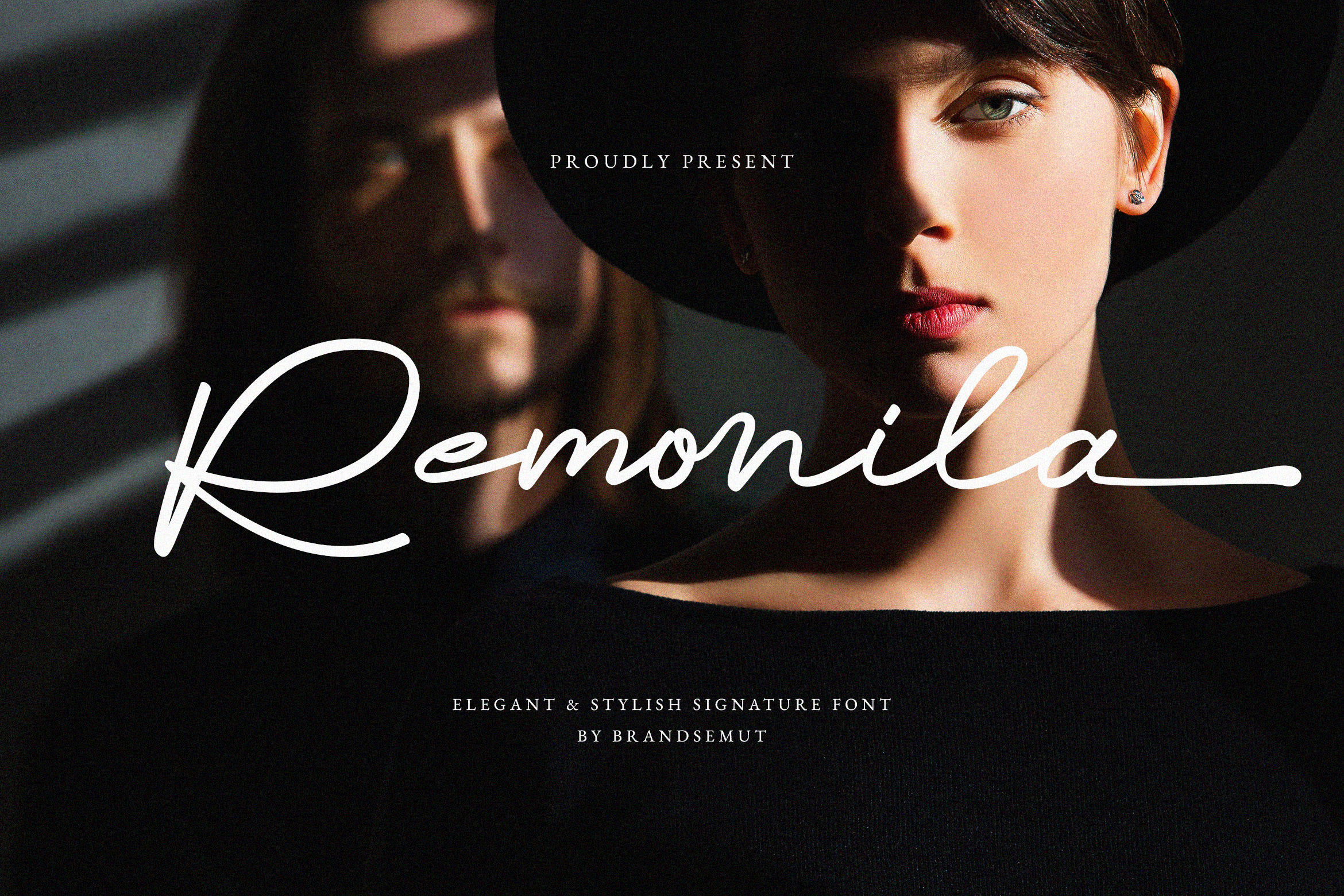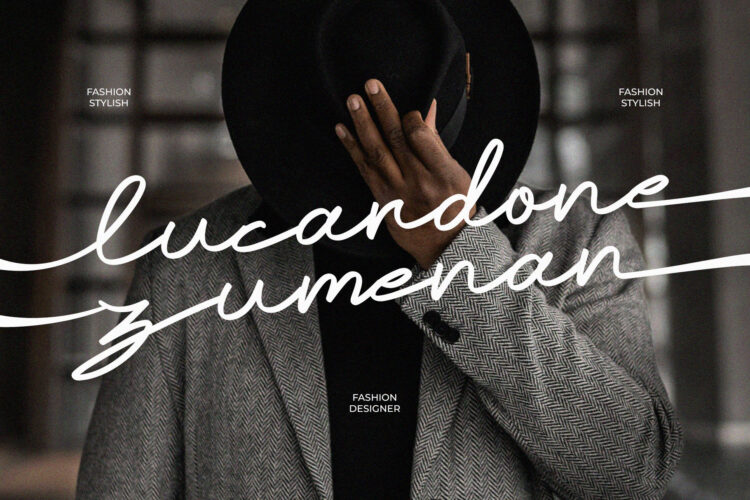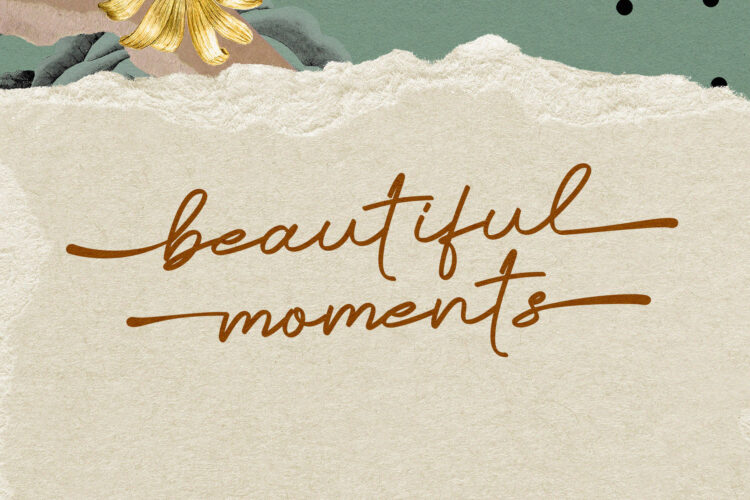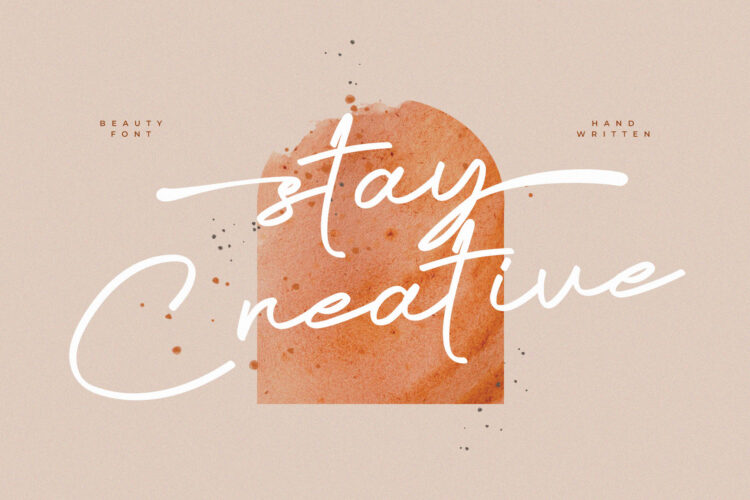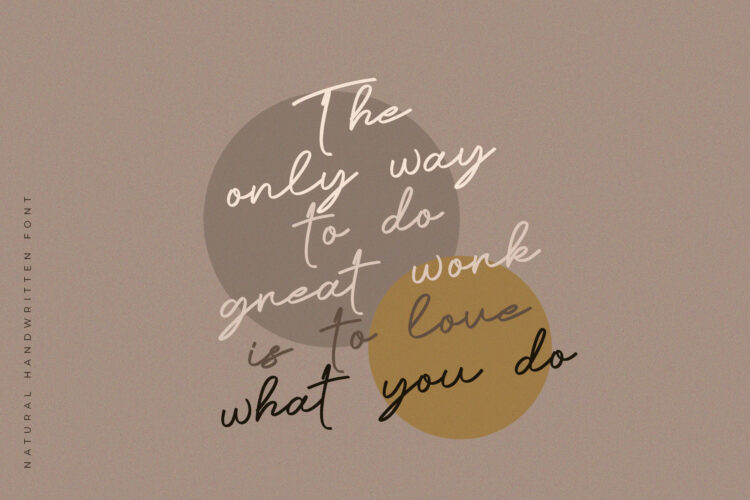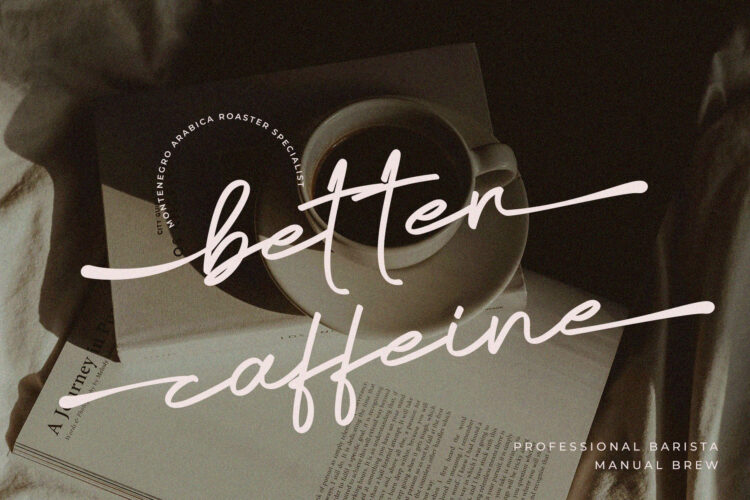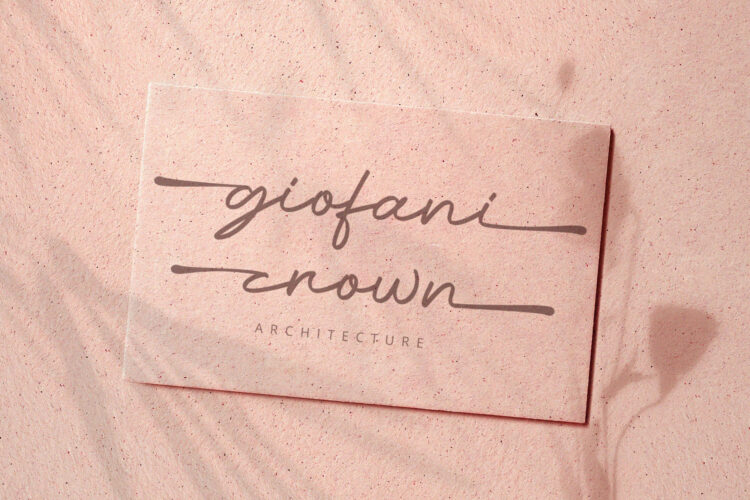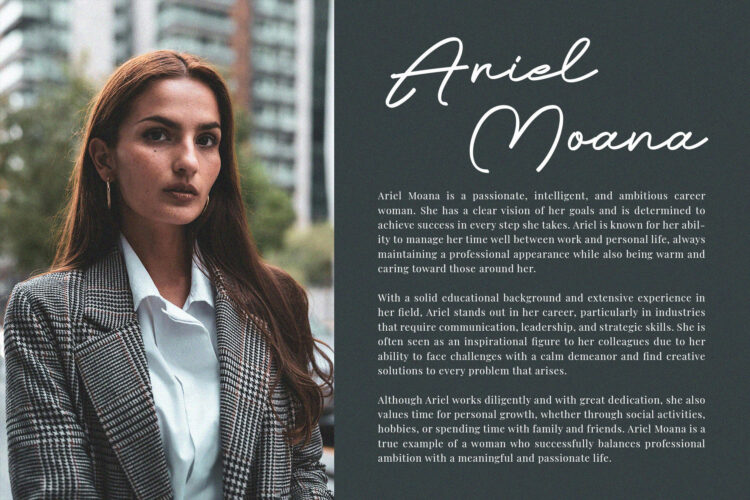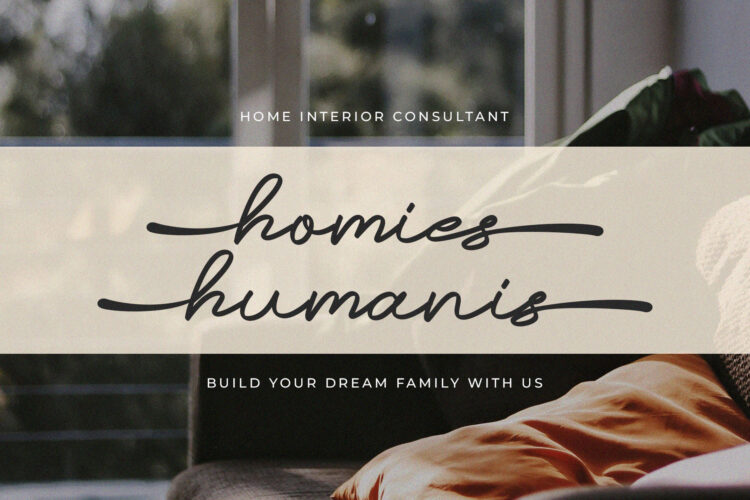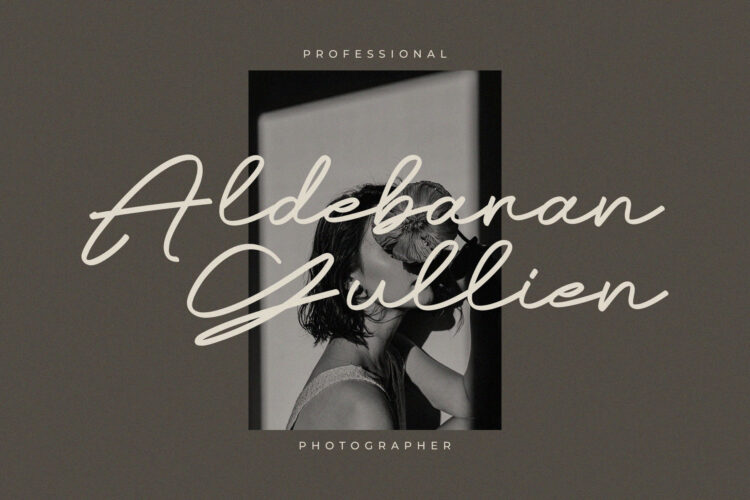
Introducing the new Remonila Signature font is a elegant and stylish handwritten script, that you can use to perfect your design.
You will get full set of lowercase and uppercase letters, multilingual, numerals and punctuation.
Remonila – Elegant Handwritten Script